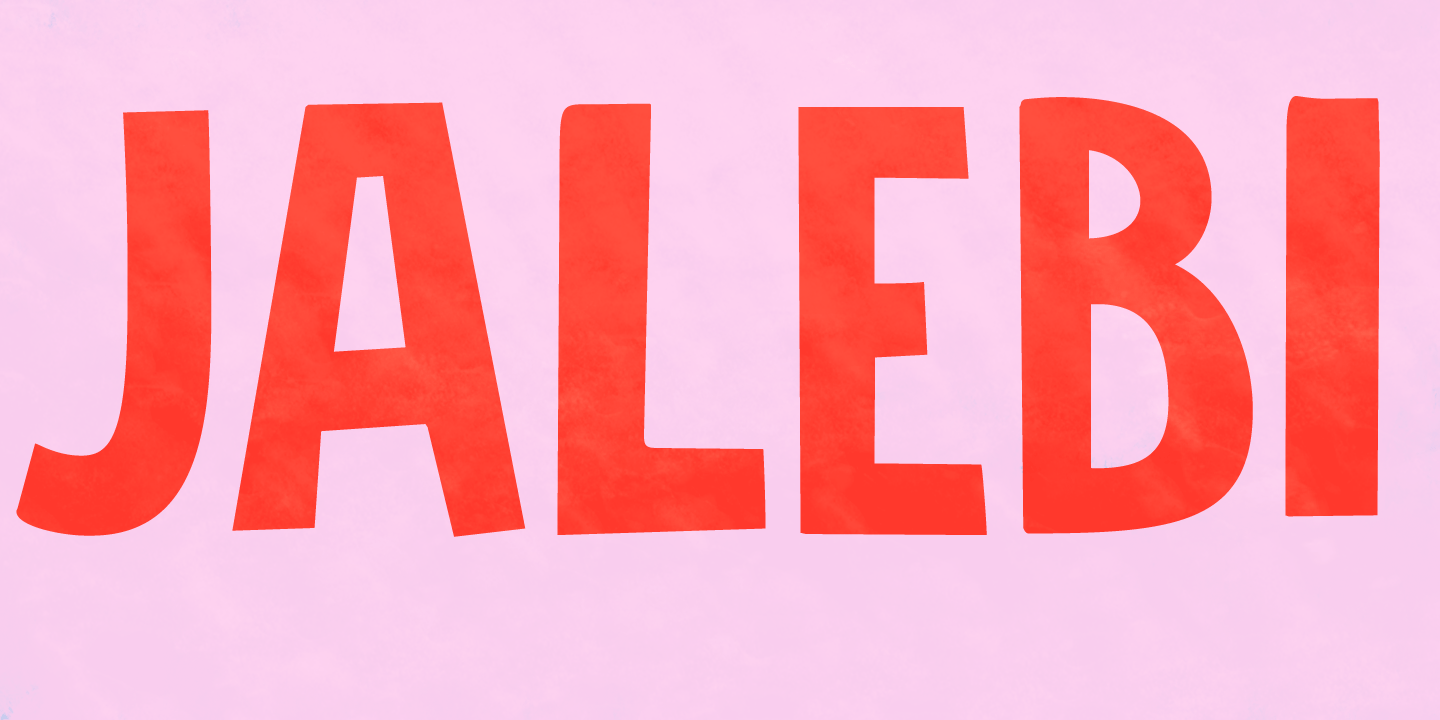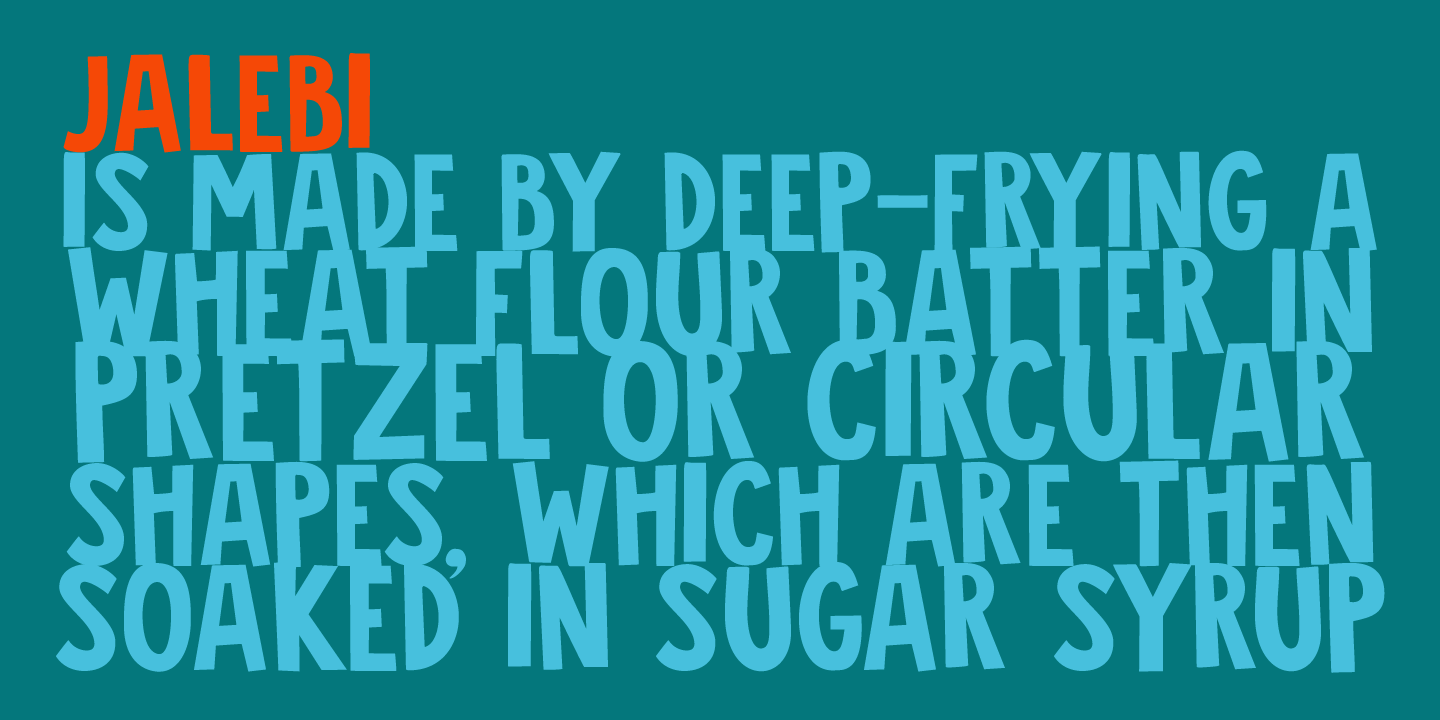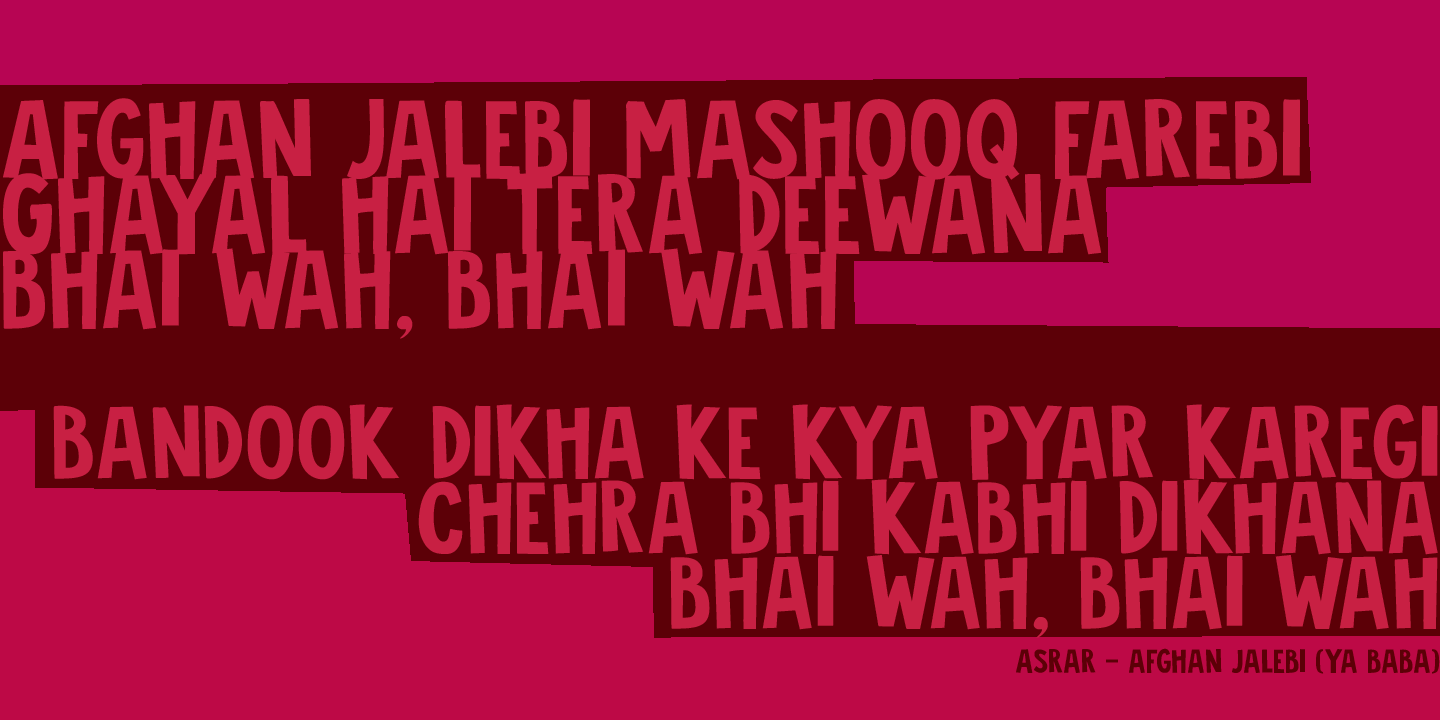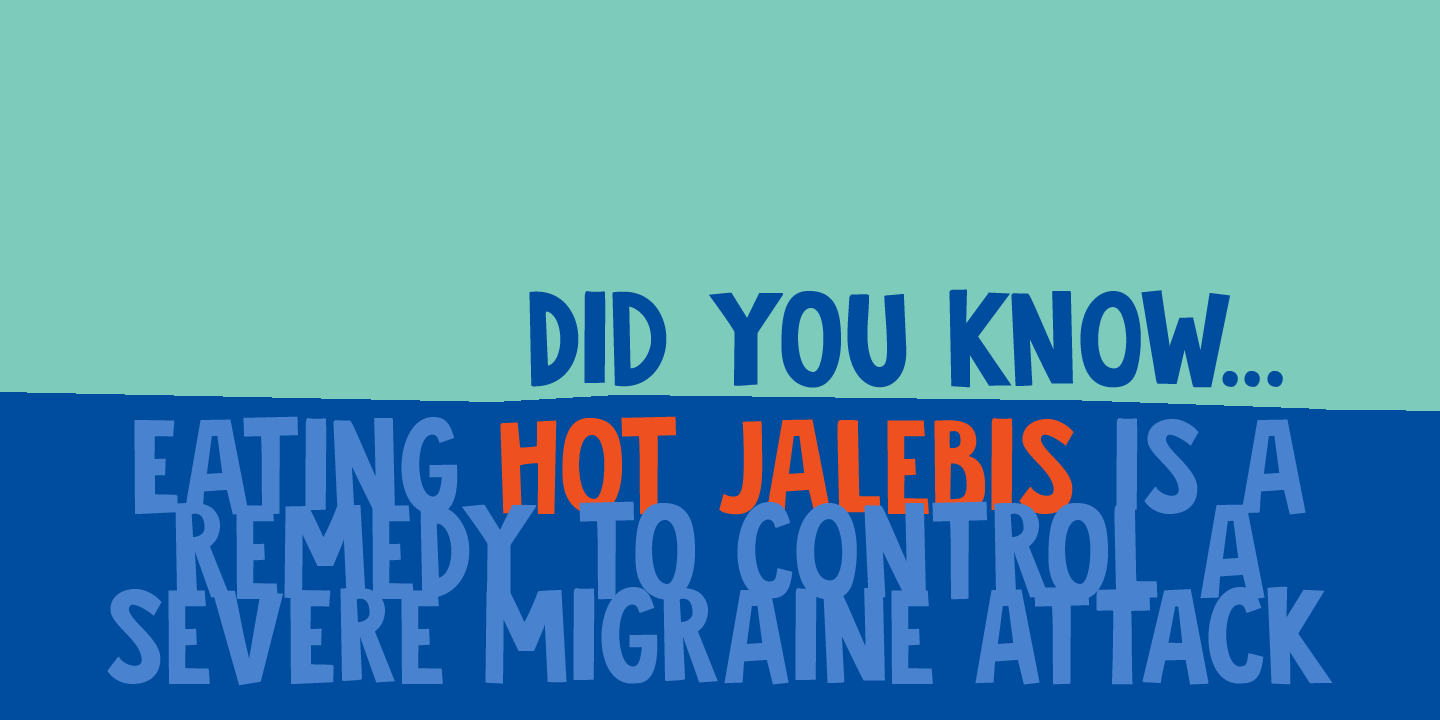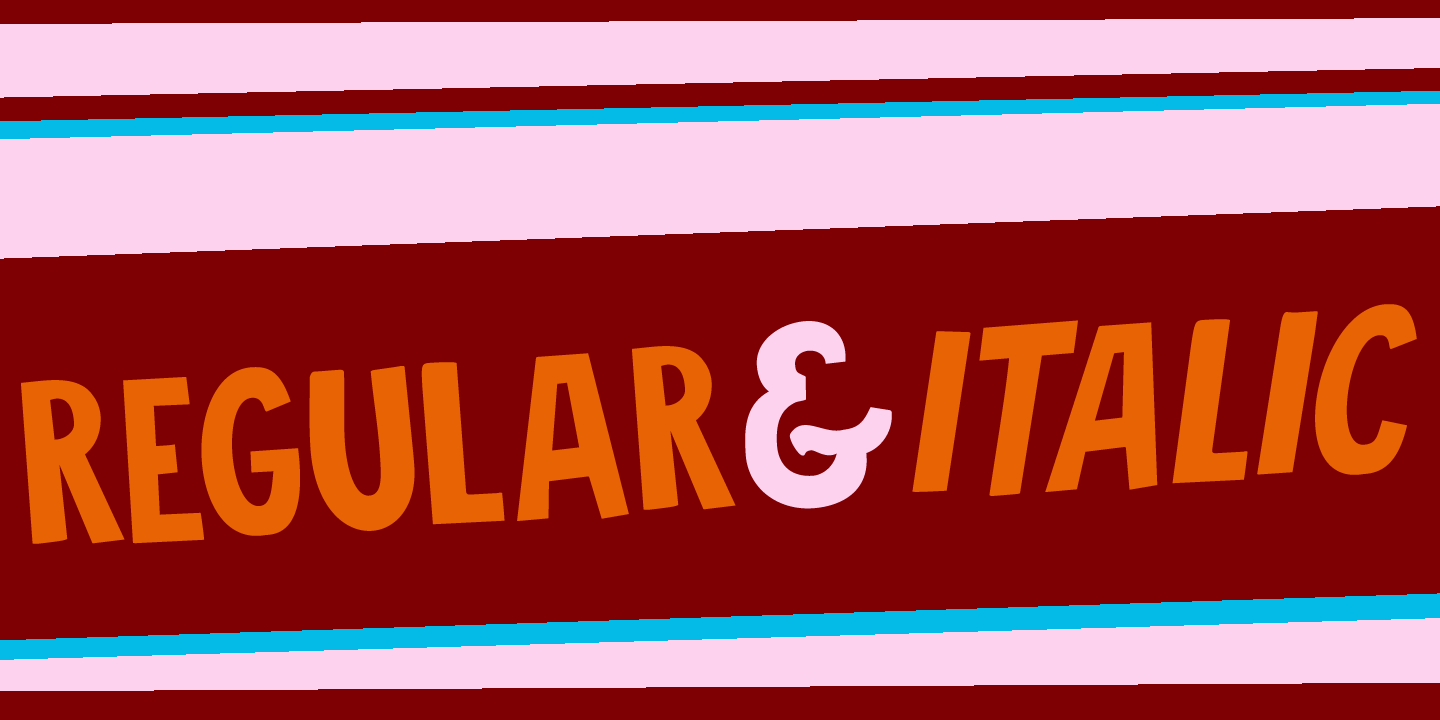
Jalebi
Jalebi font is quite like its namesake, the Indian deep-fried sweet. It is fat(tening), uneven, crunchy and addictive. Jalebi is an all caps font, but upper and lower case glyphs differ slightly and can be mixed. An ideal font for fat headlines, product packaging, signs and posters. Comes loaded with calories and diacritics!